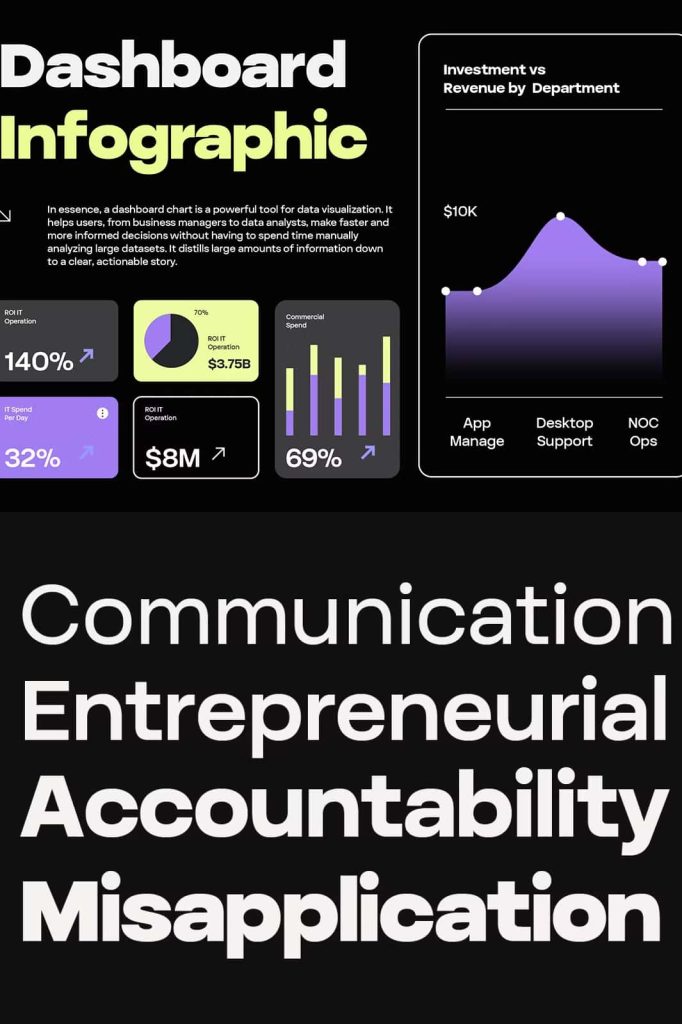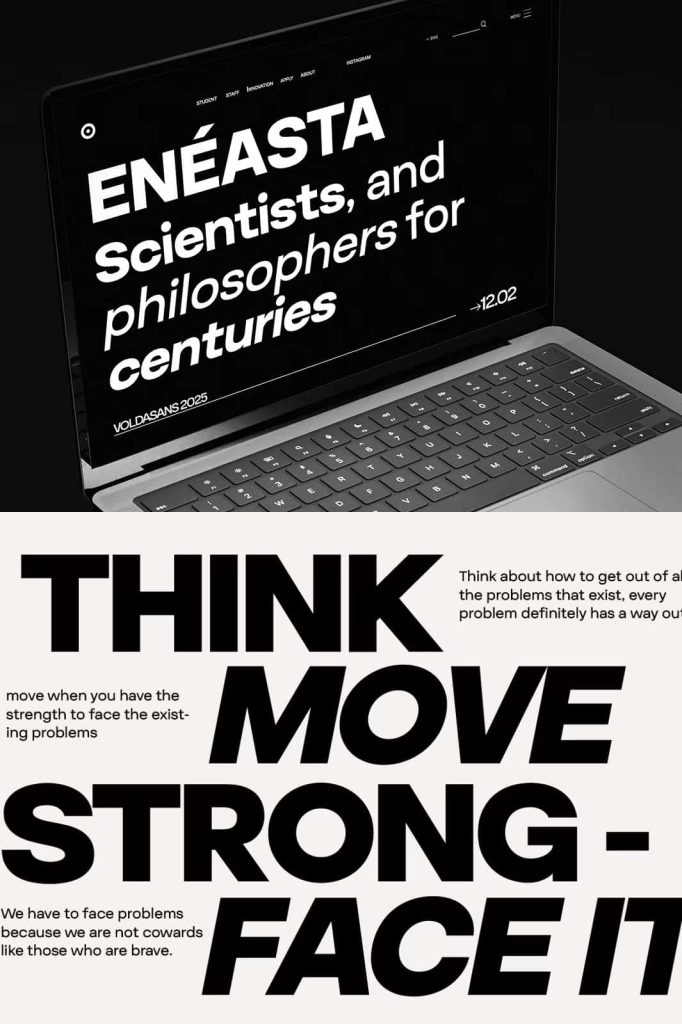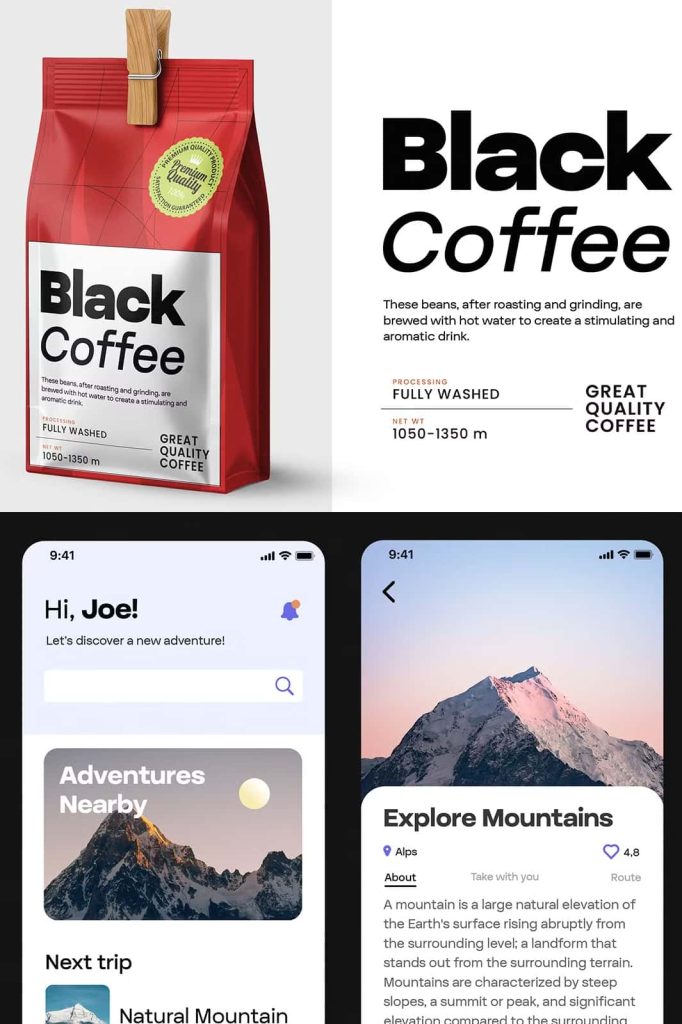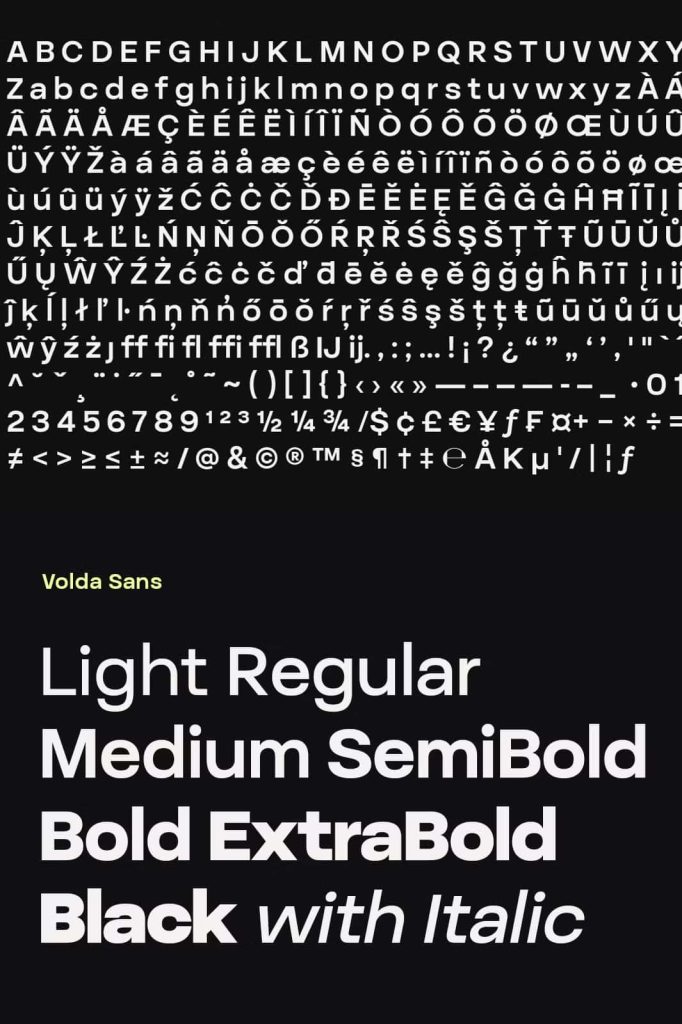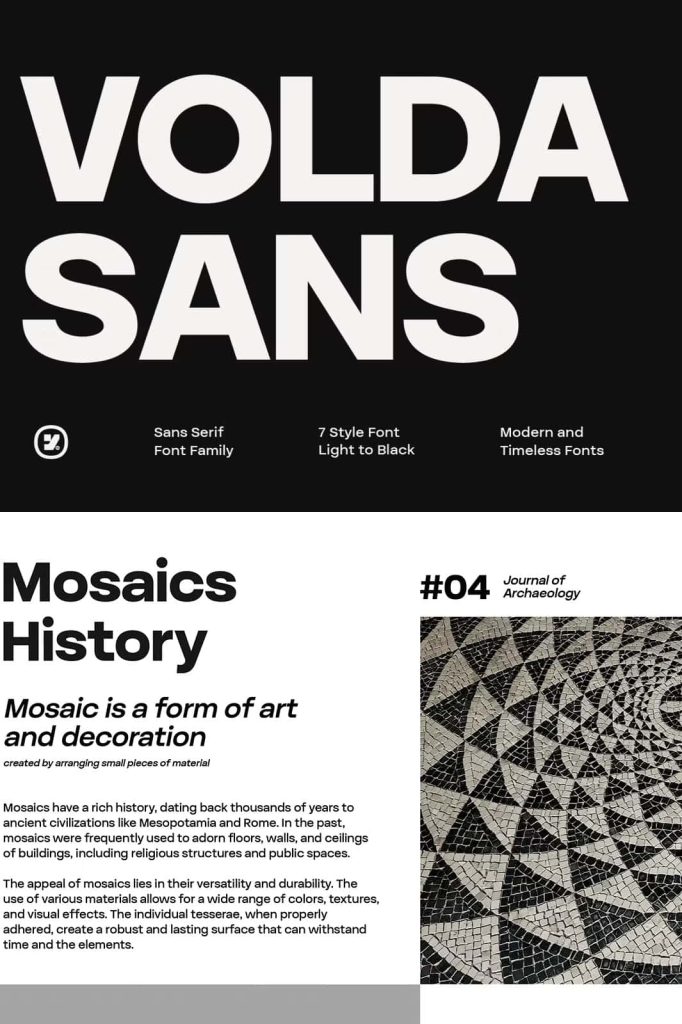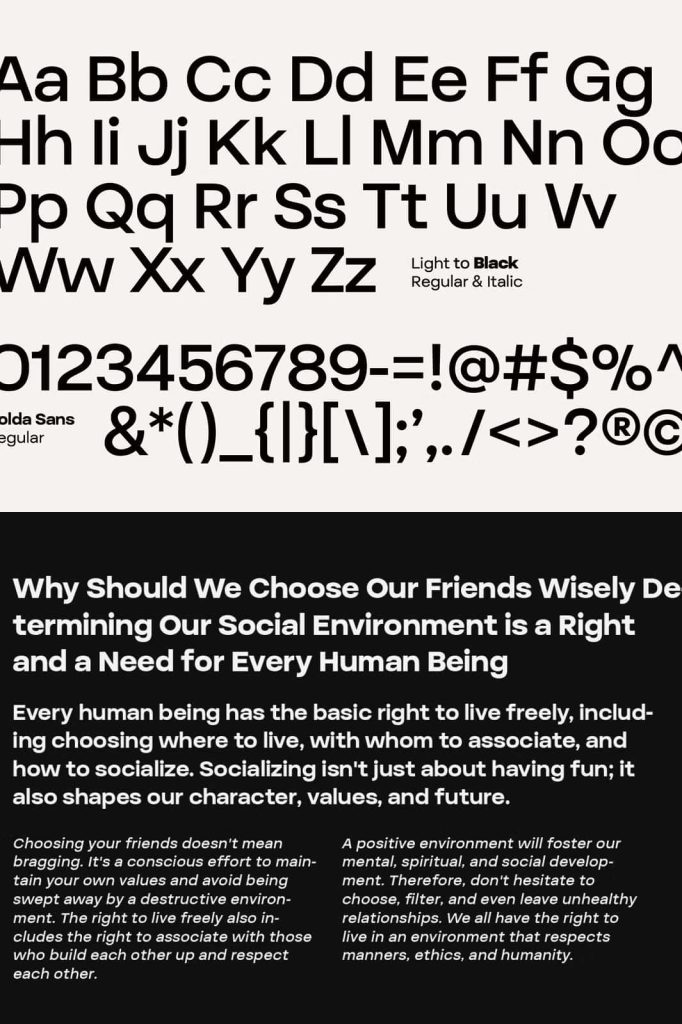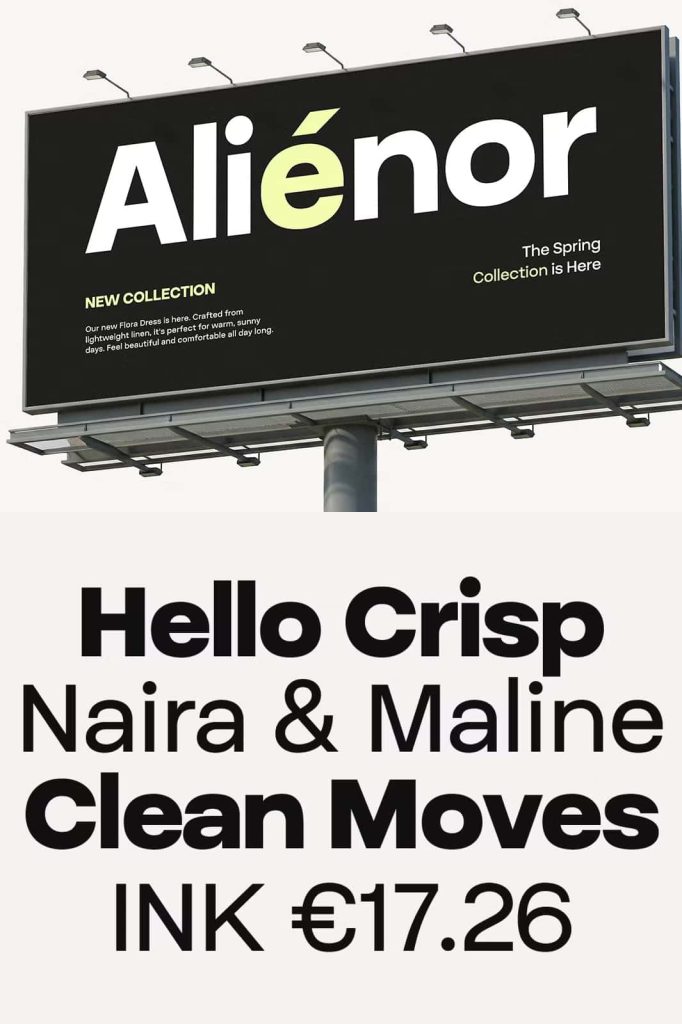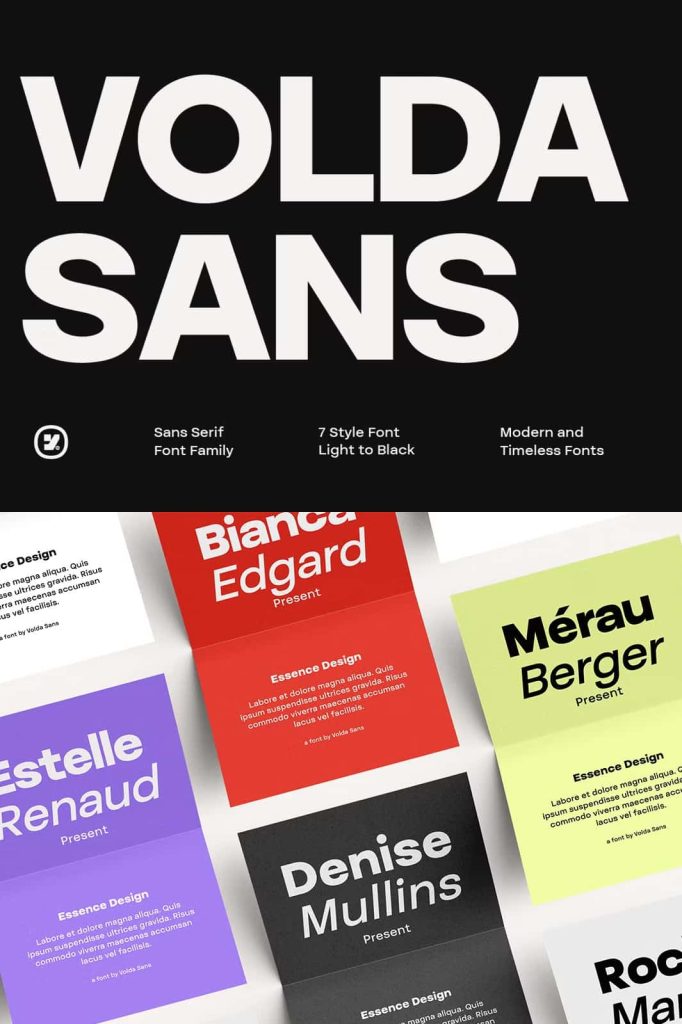
Volda Sans Modern Sans Serif Font Family
Volda Sans is a modern sans serif font family that delivers clarity, flexibility, and professional appeal in every design. Built with clean shapes and balanced proportions, this typeface helps designers create strong visual communication across a wide range of projects. Whether you are working on branding, user interfaces, editorial layouts, or marketing materials, Volda Sans provides the structure and adaptability needed to achieve polished results.
Clean Design with Modern Precision
Volda Sans focuses on simplicity and precision. Its clean lines and carefully crafted letterforms ensure excellent readability at all sizes. The font avoids unnecessary decoration, allowing your content to stand out clearly and effectively. This minimalist approach makes it ideal for modern design environments where clarity and usability play a crucial role.
The balanced proportions of Volda Sans create a harmonious visual rhythm, helping your text feel organized and easy to read. Designers can rely on this consistency to maintain a professional appearance across different layouts and platforms.
A Complete Family with 14 Styles
This font family includes seven weights, ranging from Light to Black, each paired with a matching italic version. In total, Volda Sans offers 14 distinct styles, giving you the flexibility to build dynamic and versatile typography systems. You can easily adjust weight and style to match different design needs while maintaining a cohesive look.
The lighter weights work well for body text and subtle design elements, providing a clean and unobtrusive reading experience. Medium weights offer balance and readability, making them suitable for general use. The heavier weights create strong visual impact, making them perfect for headlines, titles, and emphasis.
Italic Styles for Added Expression
The inclusion of italic styles across all weights enhances the versatility of Volda Sans. These italics introduce movement and contrast, allowing designers to highlight important information or add variation within text-heavy layouts. The italic forms maintain the same clarity and structure as the upright versions, ensuring consistency throughout your design.
Use italic styles for quotes, emphasis, or stylistic accents to create more engaging and visually interesting compositions.
Flexible Typography for Any Project
With its wide range of weights and styles, Volda Sans adapts easily to different design contexts. You can use it to create clean user interfaces, professional business documents, modern websites, and eye-catching marketing materials. Its versatility makes it a reliable choice for both digital and print applications.
Designers can build complete typographic systems using a single font family, reducing complexity while maintaining visual harmony. This flexibility helps streamline the design process and ensures consistent results across multiple projects.
Perfect for Branding and User Experience
Volda Sans supports strong branding by providing a clear and modern visual identity. Its neutral yet refined appearance allows it to fit a wide range of brand personalities, from corporate and professional to creative and contemporary. The font communicates reliability, clarity, and confidence, making it suitable for businesses that want to present a polished image.
In user experience design, readability becomes essential. Volda Sans performs exceptionally well in interfaces, ensuring that text remains legible on screens of all sizes. Its clean structure improves usability and helps users navigate content بسهولة and efficiently.
Consistent Performance Across Media
Volda Sans maintains its quality across both print and digital formats. In print, it delivers sharp and precise text that enhances readability in books, brochures, and promotional materials. On digital platforms, it renders clearly on screens, ensuring a smooth reading experience for websites, apps, and social media content.
This consistency allows designers to use the same font family across multiple channels without compromising quality or performance.
Elevate Your Design with Versatility and Clarity
Volda Sans gives you the tools to create designs that are both functional and visually appealing. Its combination of clean design, multiple weights, and italic styles allows you to craft typography that adapts to any situation. Whether you need subtle elegance or bold impact, this font family delivers the flexibility to meet your goals.
By integrating Volda Sans into your projects, you can simplify your workflow while achieving professional results. It stands as a dependable choice for designers who value clarity, versatility, and modern design principles.